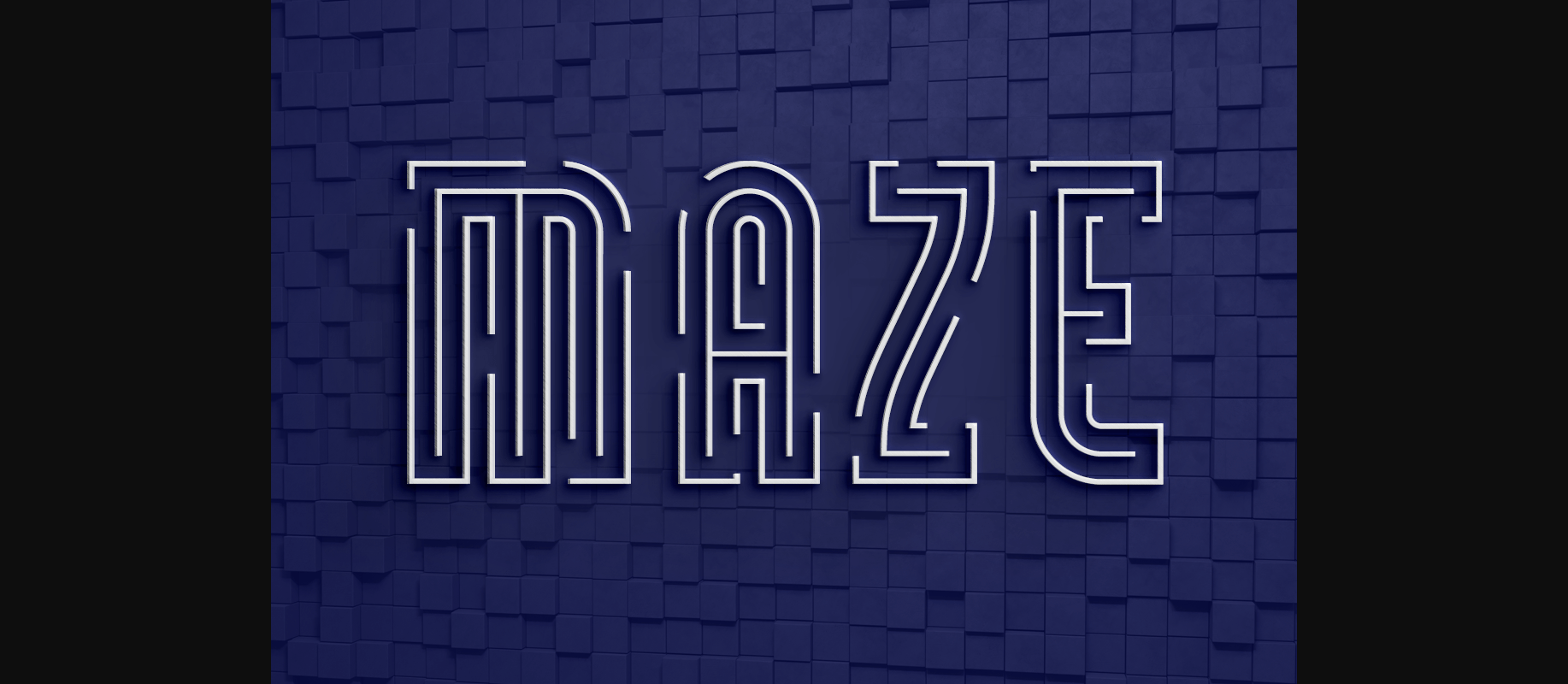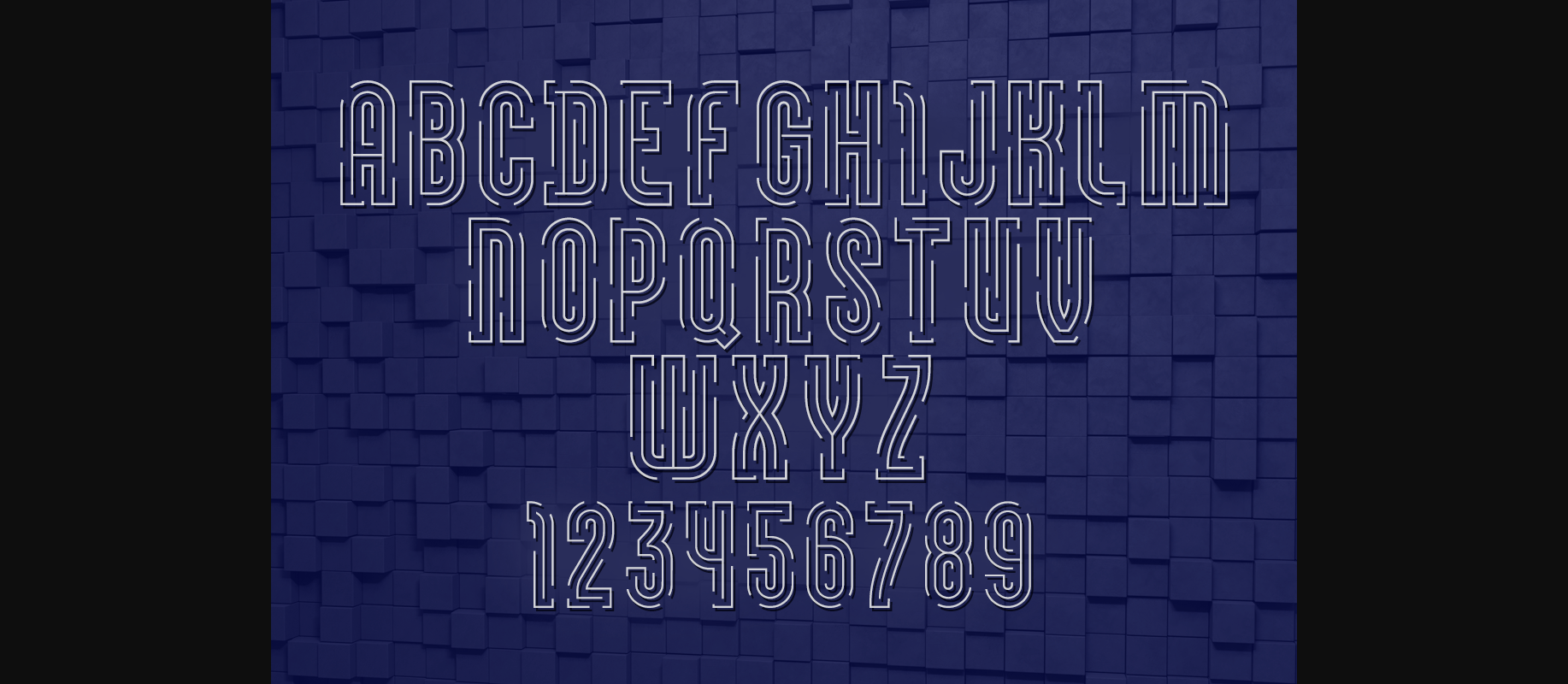
About Maze Font
Maze is a geometrical and incredibly original decorative font. It will add a cool, modern, and magical accent to your creative projects! Try it on storybook covers, stationery, children-related designs, games, movies, etc.